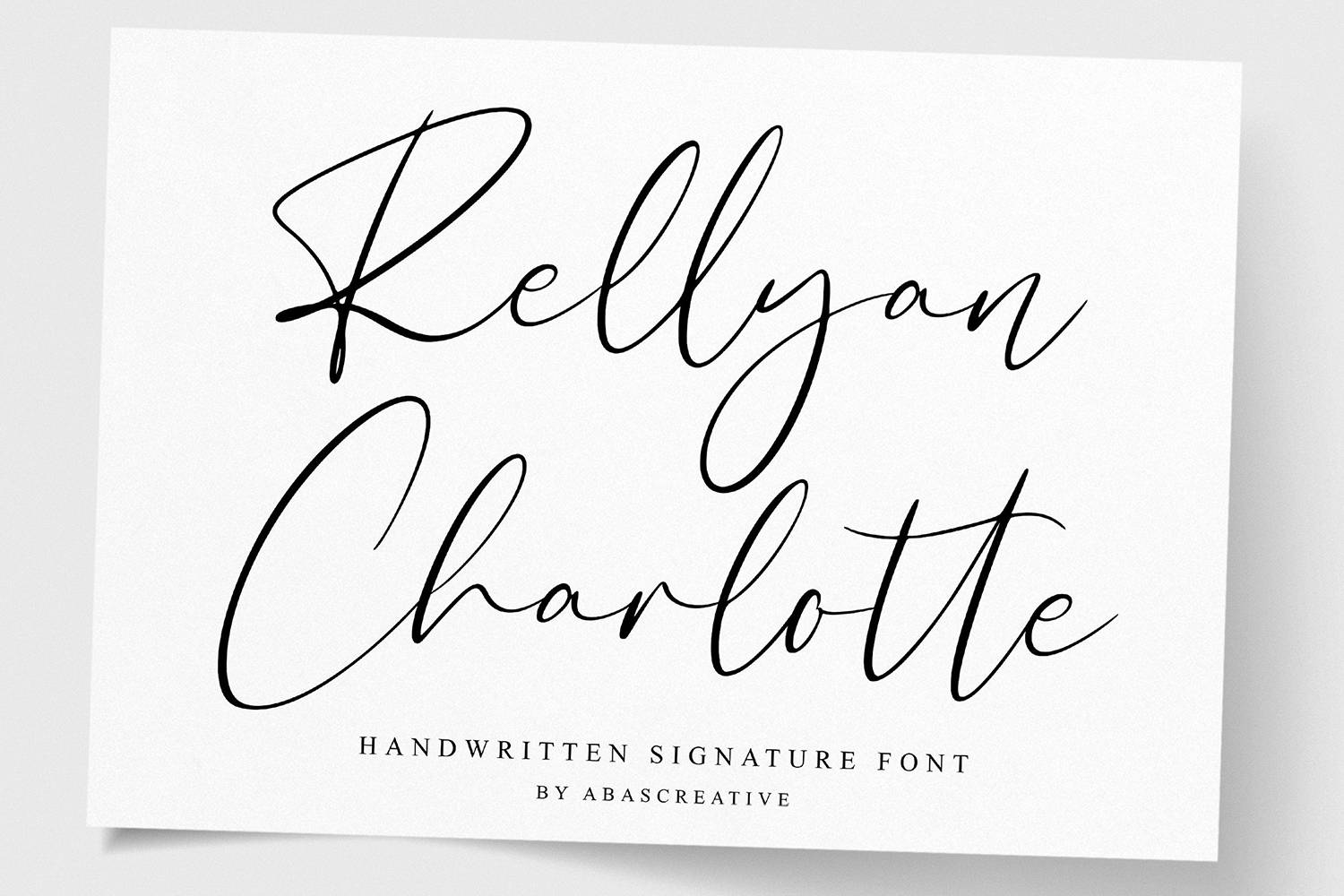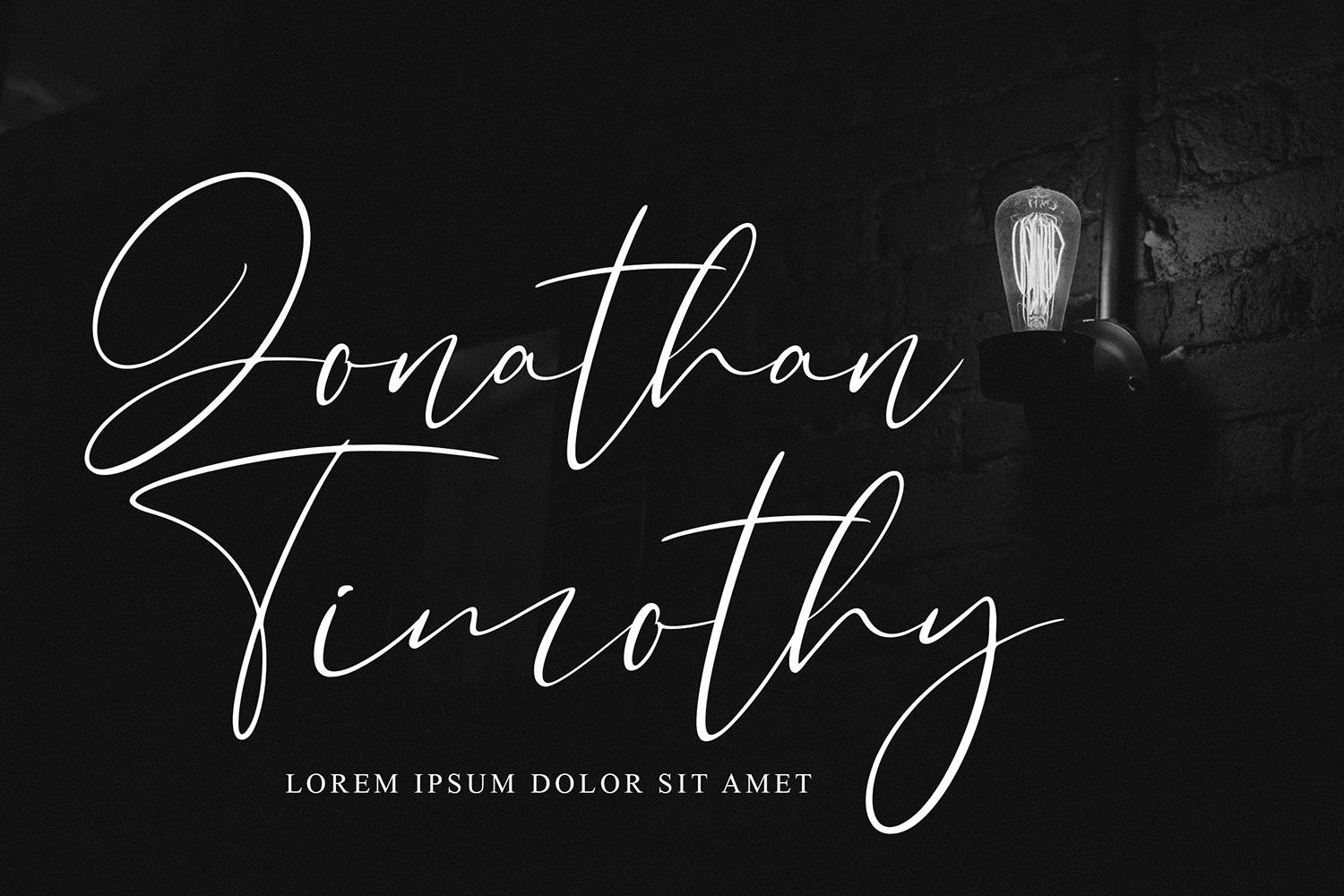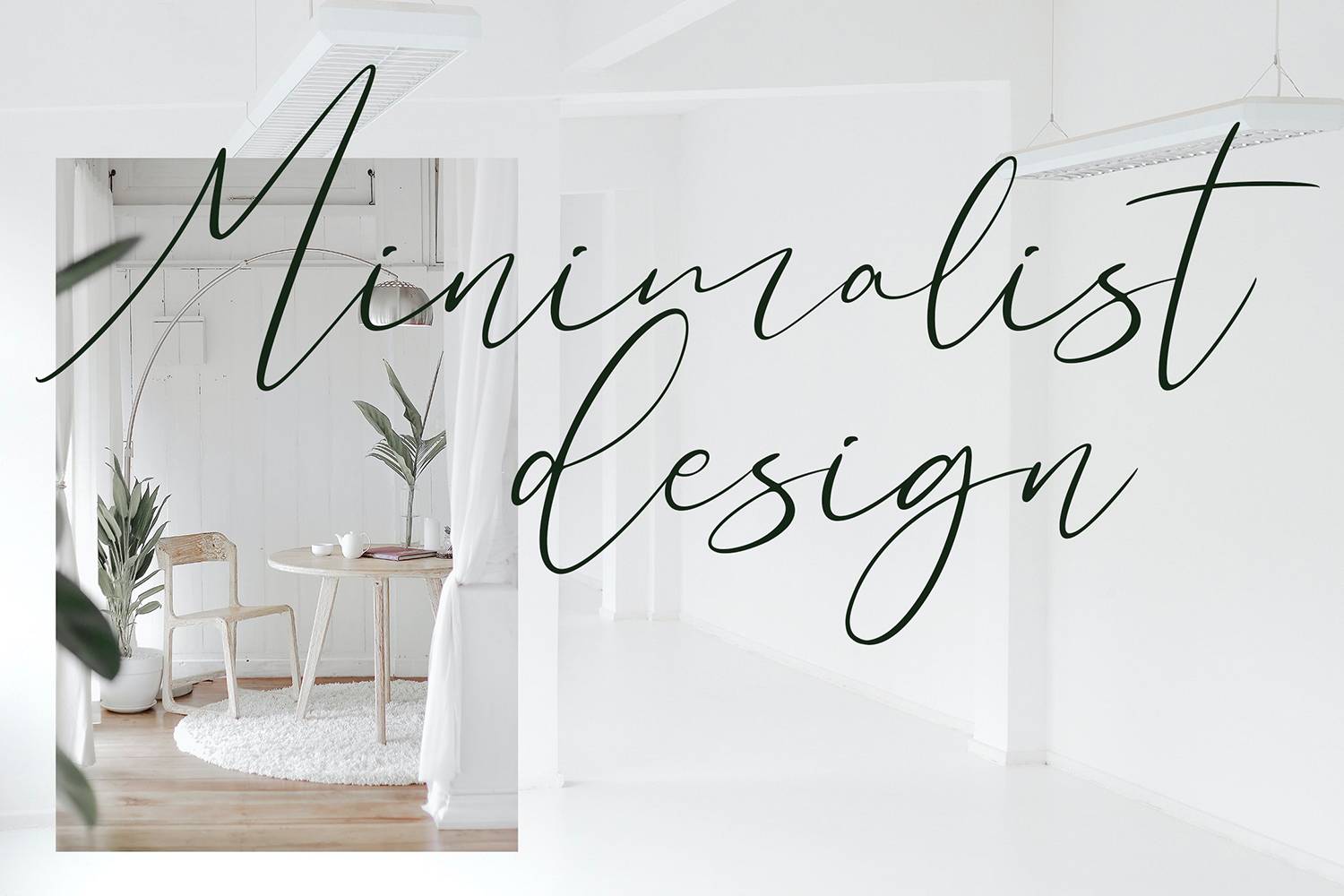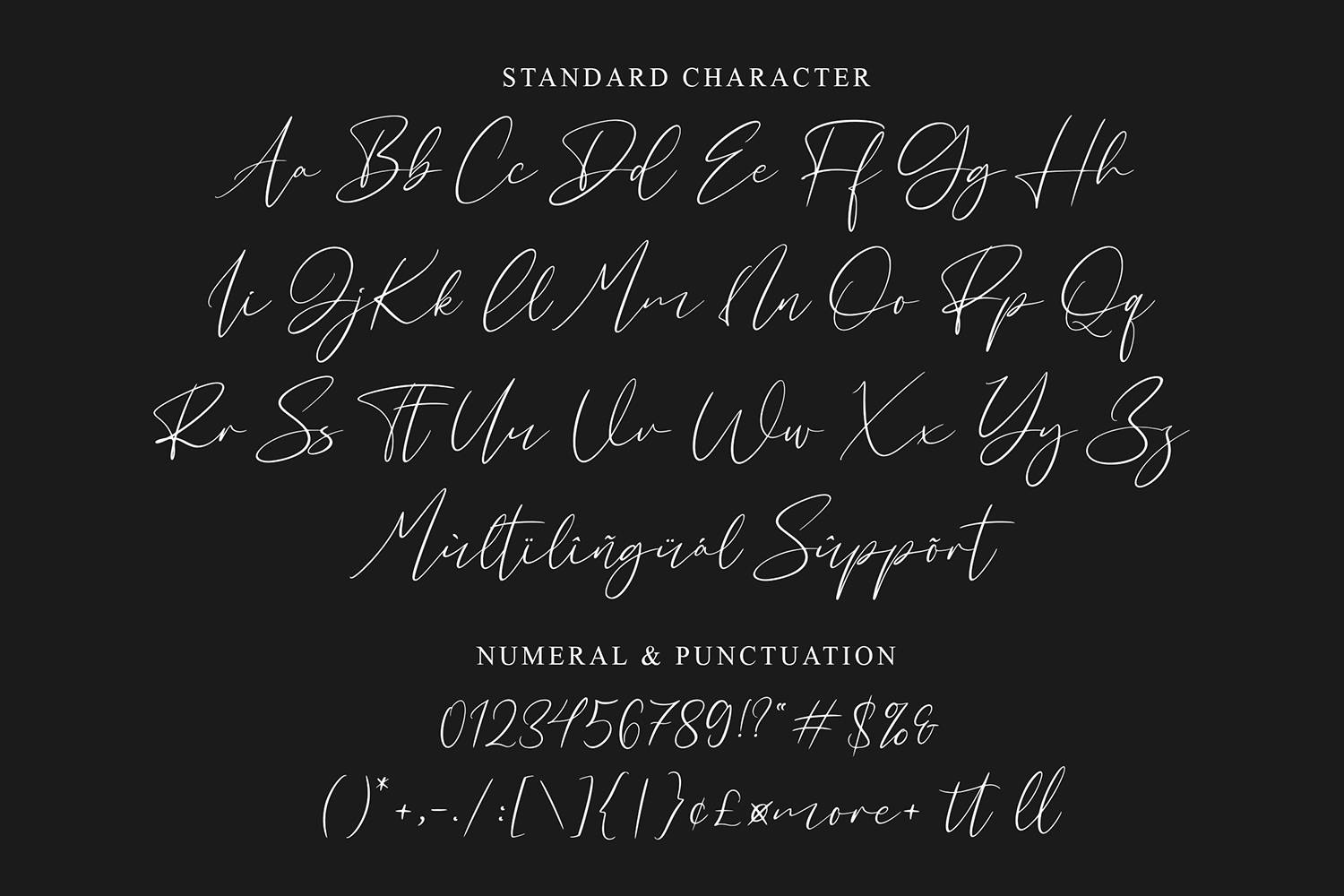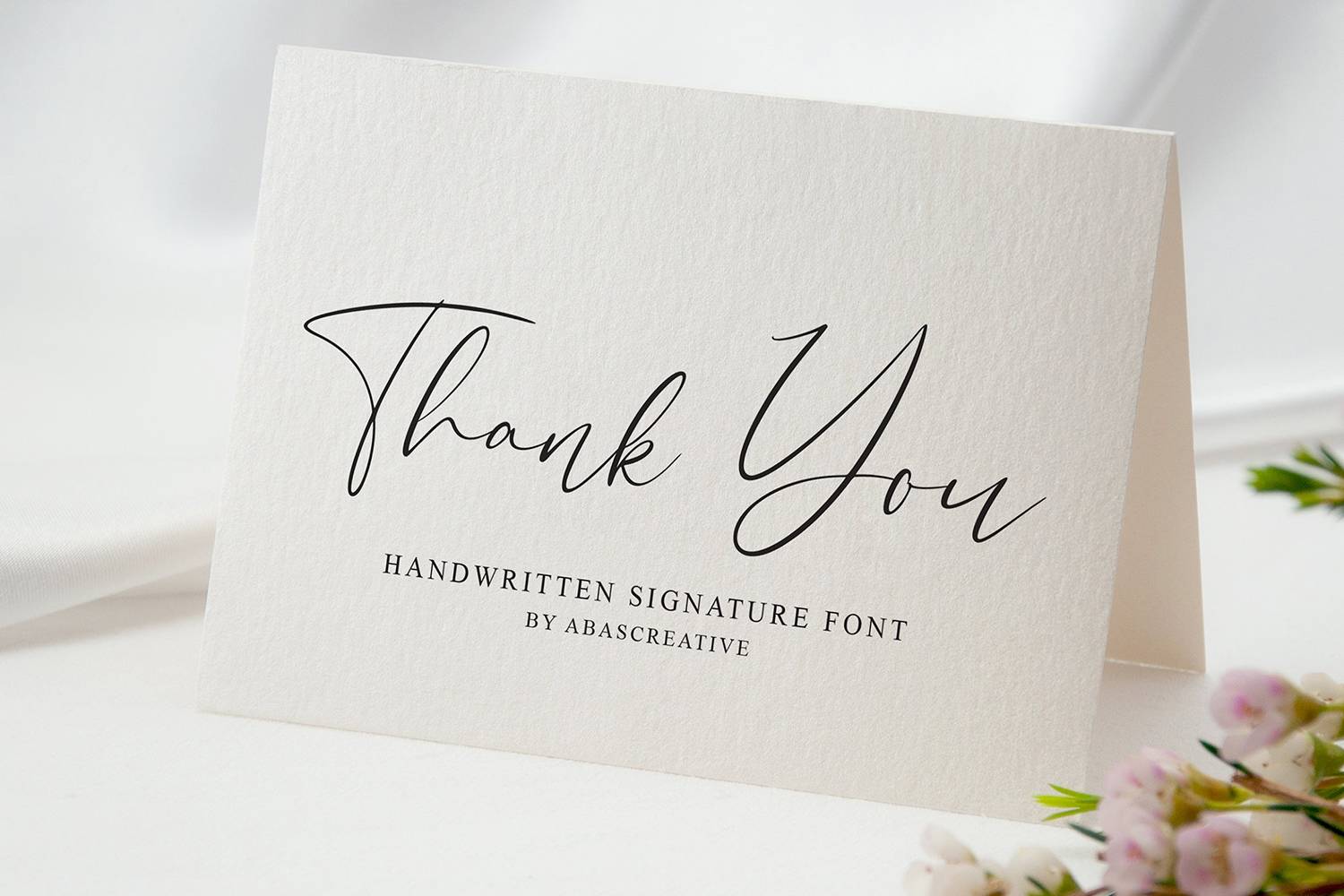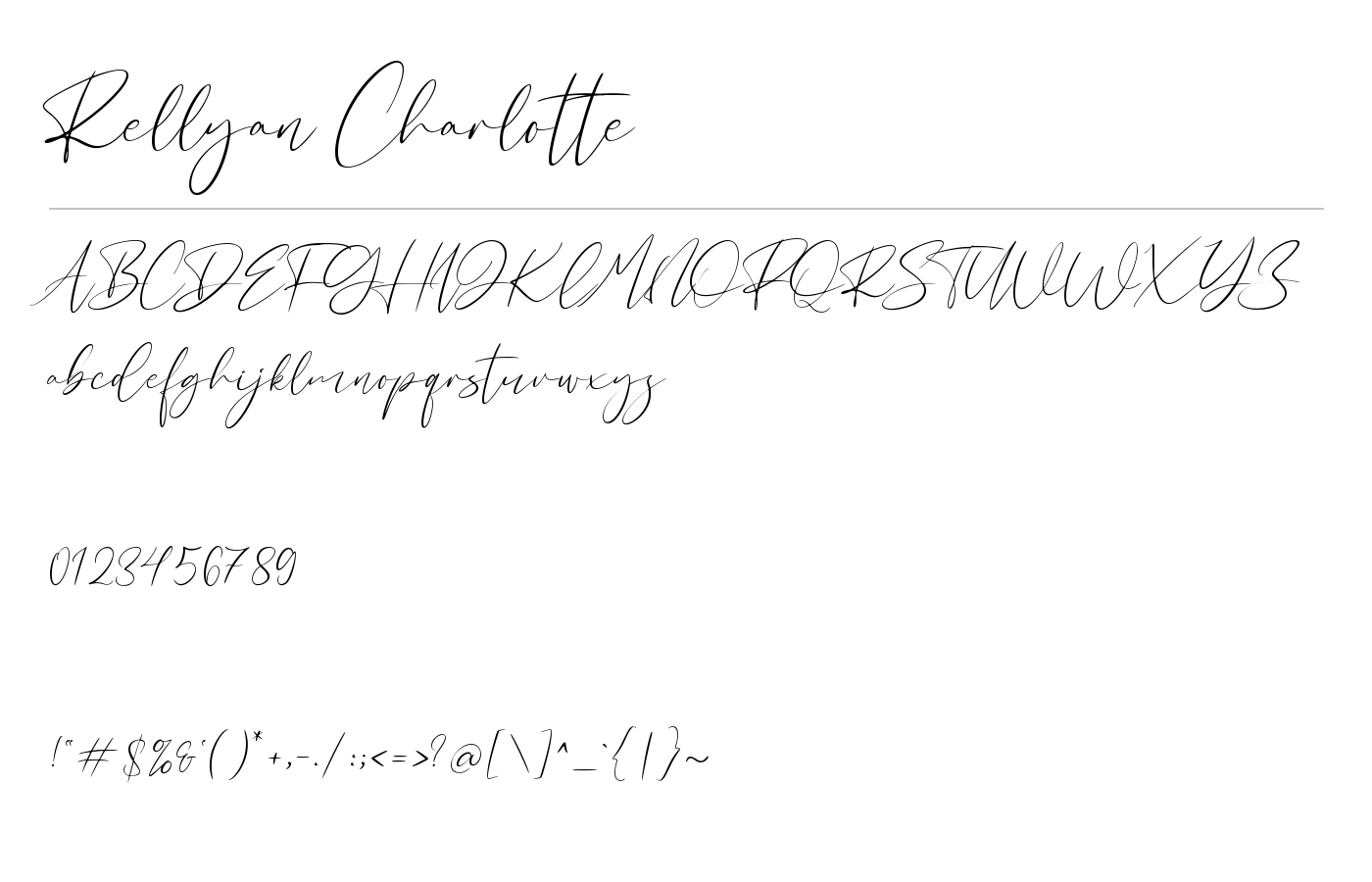
Rellyan Charlotte is a delicate, elegant script font featuring thin, flowing strokes that mimic graceful handwriting with a modern touch. Its airy, high-contrast letterforms and sophisticated curves make it ideal for luxury branding, wedding invitations, and stylish editorial work where a refined, personal feel is desired. This font shines in large sizes for headlines or logos, adding a touch of elegance and intimacy to any design.
Rellyan Charlotte Font
About Rellyan Charlotte Font
| Font family | Rellyan Charlotte Font |
| Designer | Muhammad Farhan Sholeh Ramadhika |